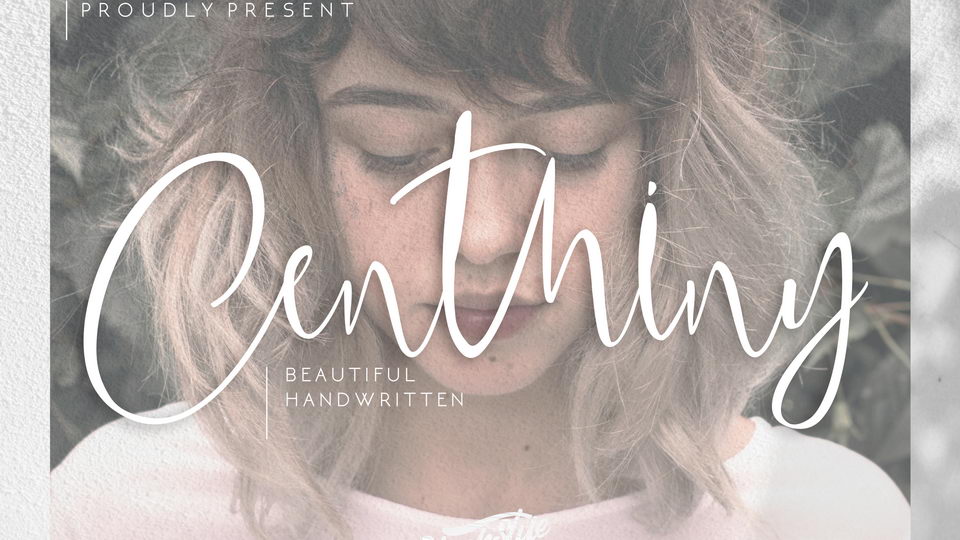
Download Centhiny font, a handwritten script with natural style and flow, a beautiful and luxurious font with natural hand scratches. Centhiny font is perfect for weddings, watermarks, personal branding, such as interviews, business cards, product logos, etc.